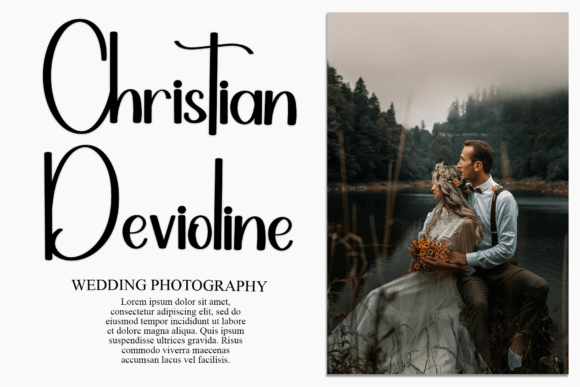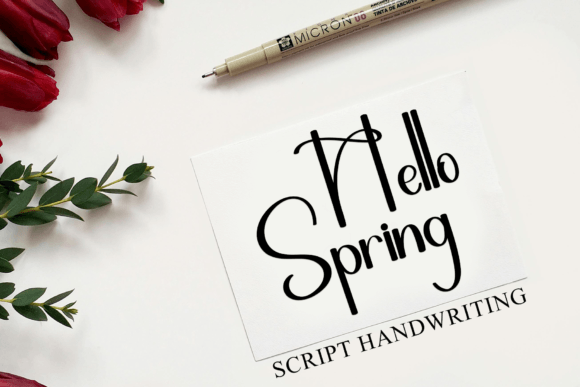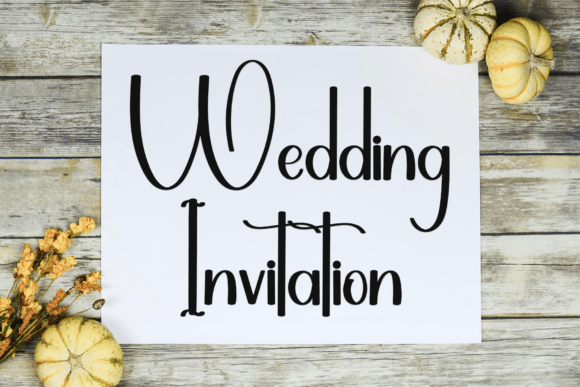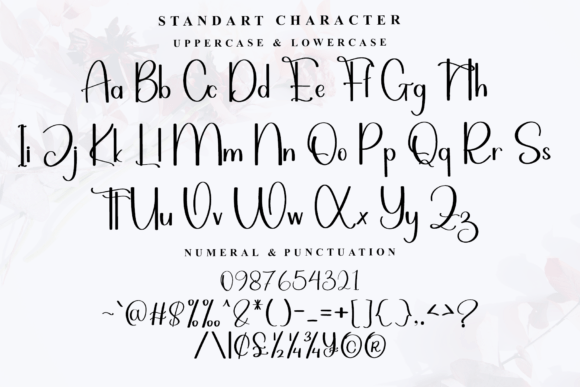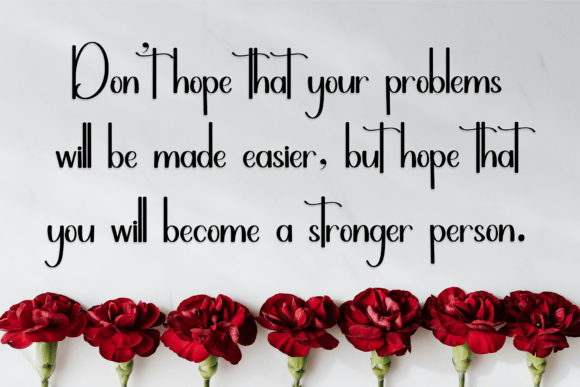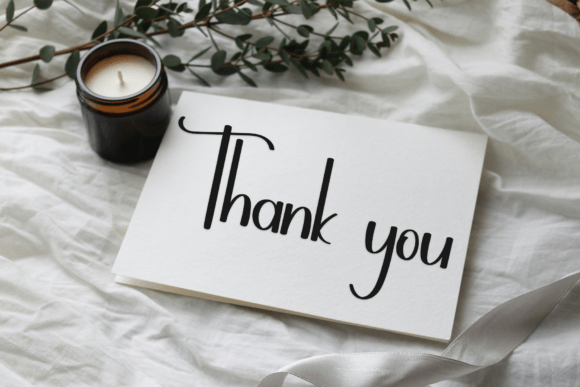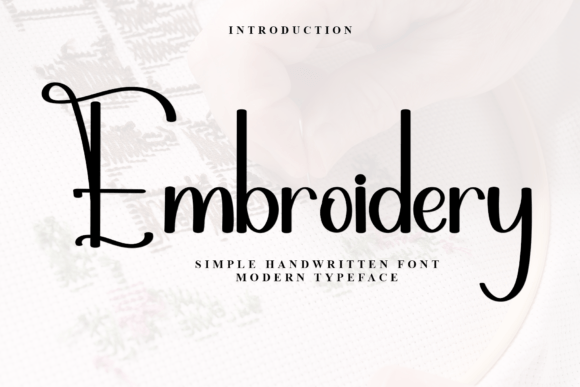
The Art of Embroidery Font: Adding a Personal Touch to Your Fabric Designs
Embroidery is a craft where you stitch designs onto fabric using thread. With a simple handwritten font, you create designs that look like they were written by hand, giving a personal and artistic touch to your fabric. In this article, we’ll explore the world of embroidery font and how it can elevate your fabric designs to the next level.
What is Embroidery Font?
Embroidery font refers to a type of font or lettering style that is specifically designed to mimic the look of hand-stitched embroidery. These fonts are often used in digital embroidery designs, allowing crafters and designers to create custom embroidered text and quotes on fabric. Embroidery fonts can range from simple and elegant to intricate and ornate, making them suitable for a wide range of projects, from clothing and accessories to home decor and gifts.
The Benefits of Using Embroidery Font
Using embroidery font in your fabric designs offers several benefits. Firstly, it allows you to add a personal touch to your projects, making them more unique and special. Handwritten fonts, in particular, can give your designs a warm and cozy feel, as if they were written by hand. Additionally, embroidery font can help to:
- Add a touch of elegance and sophistication to your designs
- Create custom and personalized gifts, such as monogrammed towels and blankets
- Enhance the visual appeal of your fabric designs, making them more eye-catching and engaging
- Provide a creative outlet for designers and crafters to express themselves
Types of Embroidery Fonts
There are several types of embroidery fonts to choose from, each with its own unique characteristics and styles. Some popular types of embroidery fonts include:
- Script Fonts: These fonts mimic the look of handwriting and are often used to create elegant and sophisticated designs.
- Serif Fonts: These fonts feature small lines or flourishes at the ends of the letters, giving them a classic and traditional look.
- Sans-Serif Fonts: These fonts do not feature small lines or flourishes, giving them a clean and modern look.
- Handwritten Fonts: These fonts are designed to look like they were written by hand, with imperfections and variations in lettering.
Tips for Choosing the Right Embroidery Font
Choosing the right embroidery font for your project can be overwhelming, especially with the numerous options available. Here are some tips to help you make the right choice:
- Consider the occasion: Choose a font that suits the occasion or purpose of your project. For example, a formal event may require a more elegant and sophisticated font.
- Think about the fabric: Consider the type of fabric you’ll be embroidering on and choose a font that complements its texture and color.
- Look at the design: Choose a font that complements the overall design and style of your project.
- Experiment with different fonts: Don’t be afraid to try out different fonts and see which one works best for your project.
How to Use Embroidery Font in Your Designs
Using embroidery font in your designs is easier than you think. Here are some steps to follow:
- Choose a font: Select an embroidery font that suits your project and design.
- Digitize the font: Use embroidery software to digitize the font, converting it into a format that can be read by embroidery machines.
- Adjust the size and spacing: Adjust the size and spacing of the letters to fit your design.
- Embroider the design: Use an embroidery machine to stitch the design onto fabric.
Embroidery font is a powerful tool for designers and crafters, allowing them to add a personal and artistic touch to their fabric designs. With a wide range of fonts to choose from and easy-to-use software, creating custom embroidered text and quotes has never been easier. Whether you’re a seasoned designer or a beginner crafter, embroidery font is sure to elevate your fabric designs to the next level.